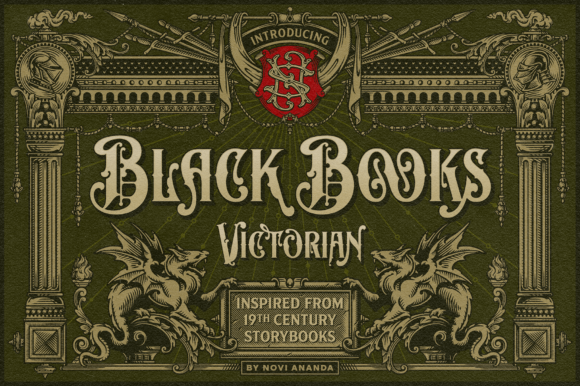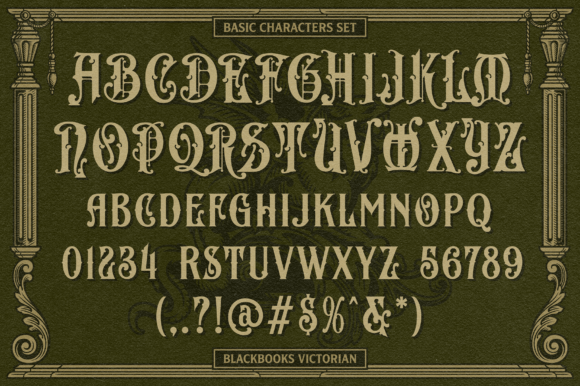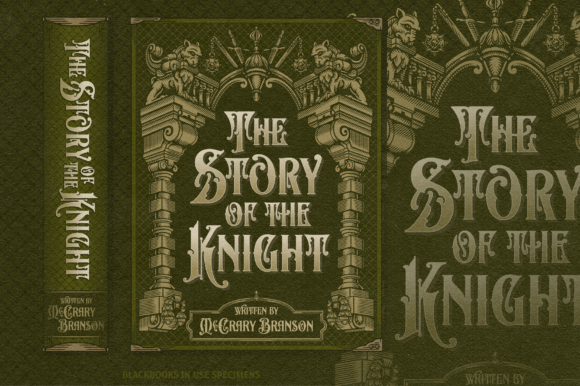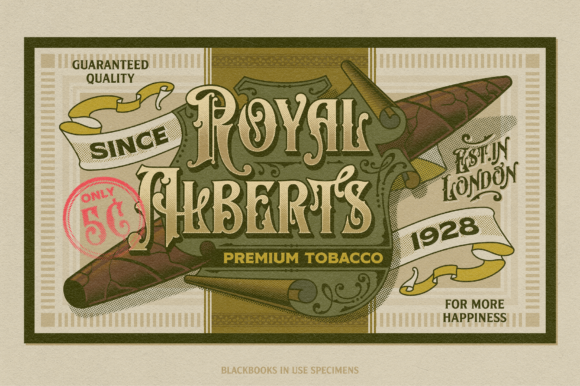
Black Books Victorian Font
About the Black Books Victorian Font
Welcome to the world of Black Books Victorian Font, a typeface that will inspire your next great project. Black Books Victorian is a spectacular blackletter font. It has a unique style and it will look great on logos, posters, headlines, packaging, tattoos, clothing, and much more!
Black Books Victorian’s bold, ornate style is ideal for headlines, short text blocks on posters or packaging, and branding applications requiring a strong, historical feel. It excels in creating a sense of luxury or tradition. However, its intricate details make it unsuitable for body text or UI elements; readability suffers at smaller sizes and in continuous paragraphs.
This font’s personality is best described as dramatic and assertive, making it a perfect choice for projects aiming for a vintage or gothic aesthetic. Consider pairing it with a clean, geometric sans-serif like Montserrat for contrast, or a classic serif like Garamond for a more cohesive, traditional look. A simpler script font could add a touch of elegance, but should be used sparingly to avoid visual clutter.
For optimal impact, use Black Books Victorian sparingly, allowing its strong visual presence to command attention. Avoid overwhelming the design by pairing it with overly decorative or equally complex fonts.
Black Books Victorian Font Usage Examples
Black Books Victorian Font Example